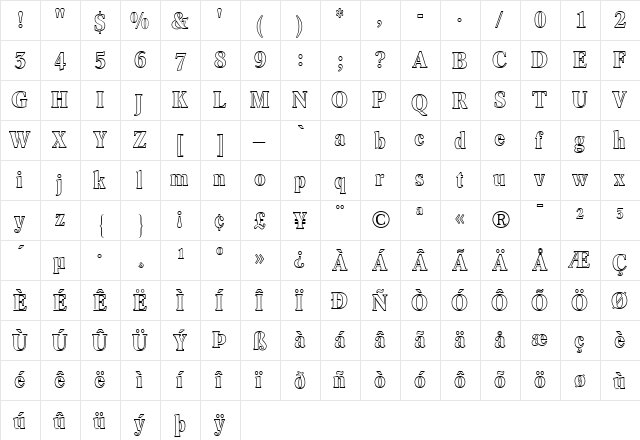
ConcordeBEOutline-Condensed Bold
Design Context for ConcordeBEOutline-Condensed Typeface
ConcordeBEOutline-Condensed is built around its visual character rather than neutral utility — its distinctive forms are designed to make an impression at display sizes. Its bold stroke weight gives it real presence on the page.
Font Pairing: Pair with a clean neutral sans-serif for body copy to let ConcordeBEOutline-Condensed's character lead without overwhelming the composition.
Pro Tip: Treat ConcordeBEOutline-Condensed as the centrepiece of your typographic hierarchy. One strong heading set in a decorative face can carry an entire layout.